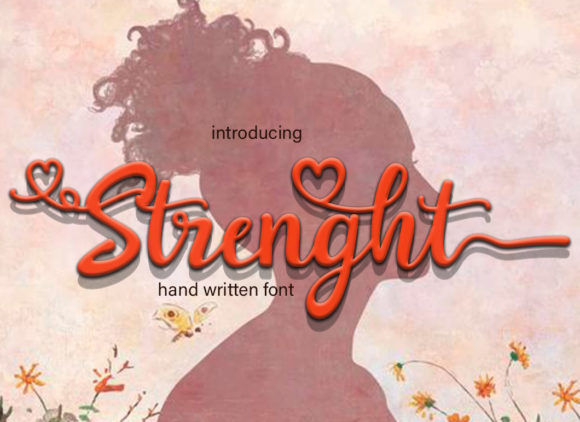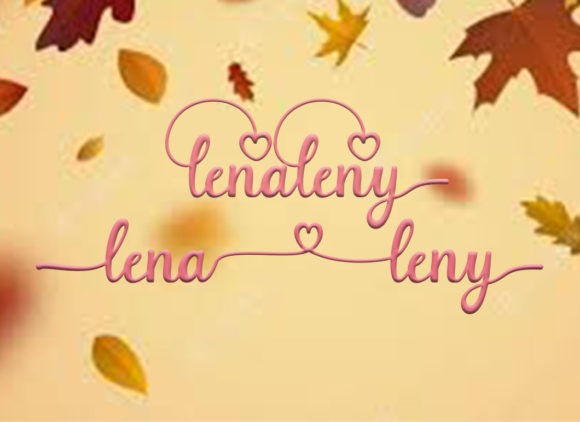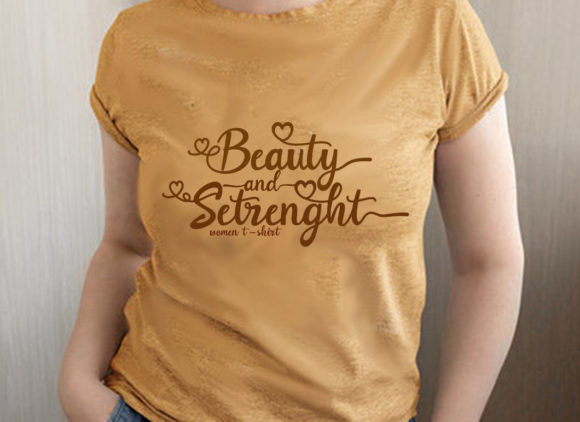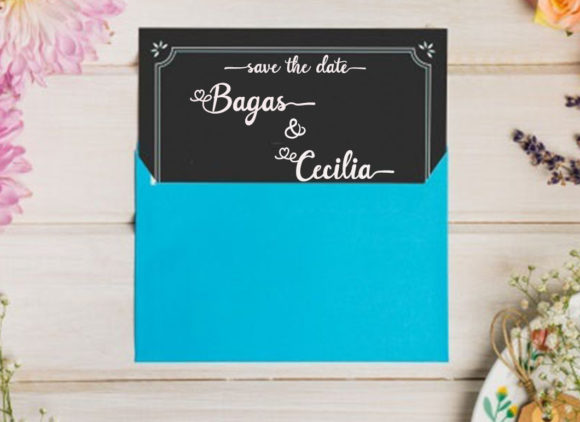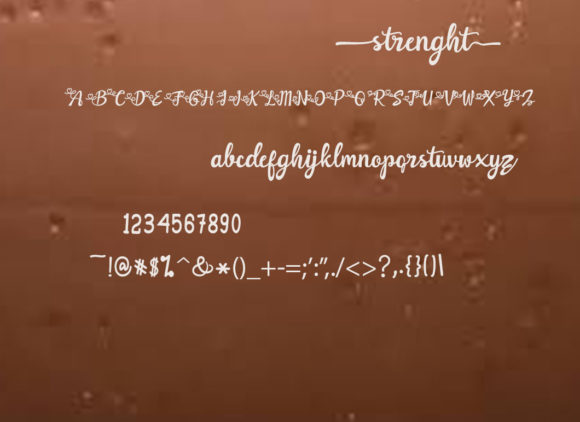
Strenght Font
About Strenght Font
Strenght is a script font that exudes elegance and class. This font was particularly crafted for those who need a beautiful and refreshing look to their designs. You can use it to create invitations, cards, t-shirts, mugs, social media posts, and any other designs.